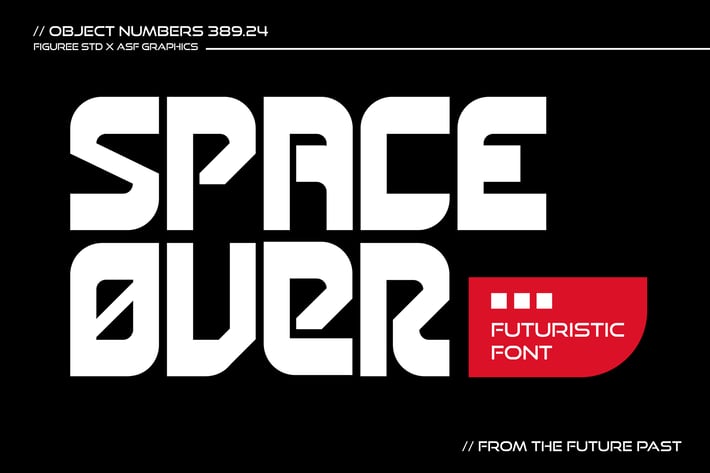
Space Over - Futuristic Display Font
Space Over is a cutting-edge futuristic display font designed to transport your designs into the next dimension. With its sleek, modern letterforms and innovative style, Space Over is the perfect choice for projects that require a bold, sci-fi-inspired aesthetic.
🚀 Futuristic Appeal: Space Over captures the essence of the future with its clean lines and angular design, making it ideal for technology-focused projects, sci-fi themes, and modern branding.
🌌 Versatile Design: Whether you're creating logos, posters, or digital content, Space Over's versatile structure allows it to adapt seamlessly to various creative applications. Its unique style ensures that your text will stand out in any context.
💡 Innovative Impact: The sharp, geometric shapes of Space Over create a visual impact that’s both striking and memorable. This font is perfect for designers looking to push boundaries and create something truly original.
🌟 High-Tech Aesthetic: Space Over is not just a font; it’s a statement of innovation. Its futuristic design speaks to the forward-thinking, making it an excellent choice for tech startups, game design, and any project that embraces the future.
Space Over is more than just a typeface—it’s a gateway to the future. With its sleek, futuristic design, this display font is engineered to elevate your projects to new heights.